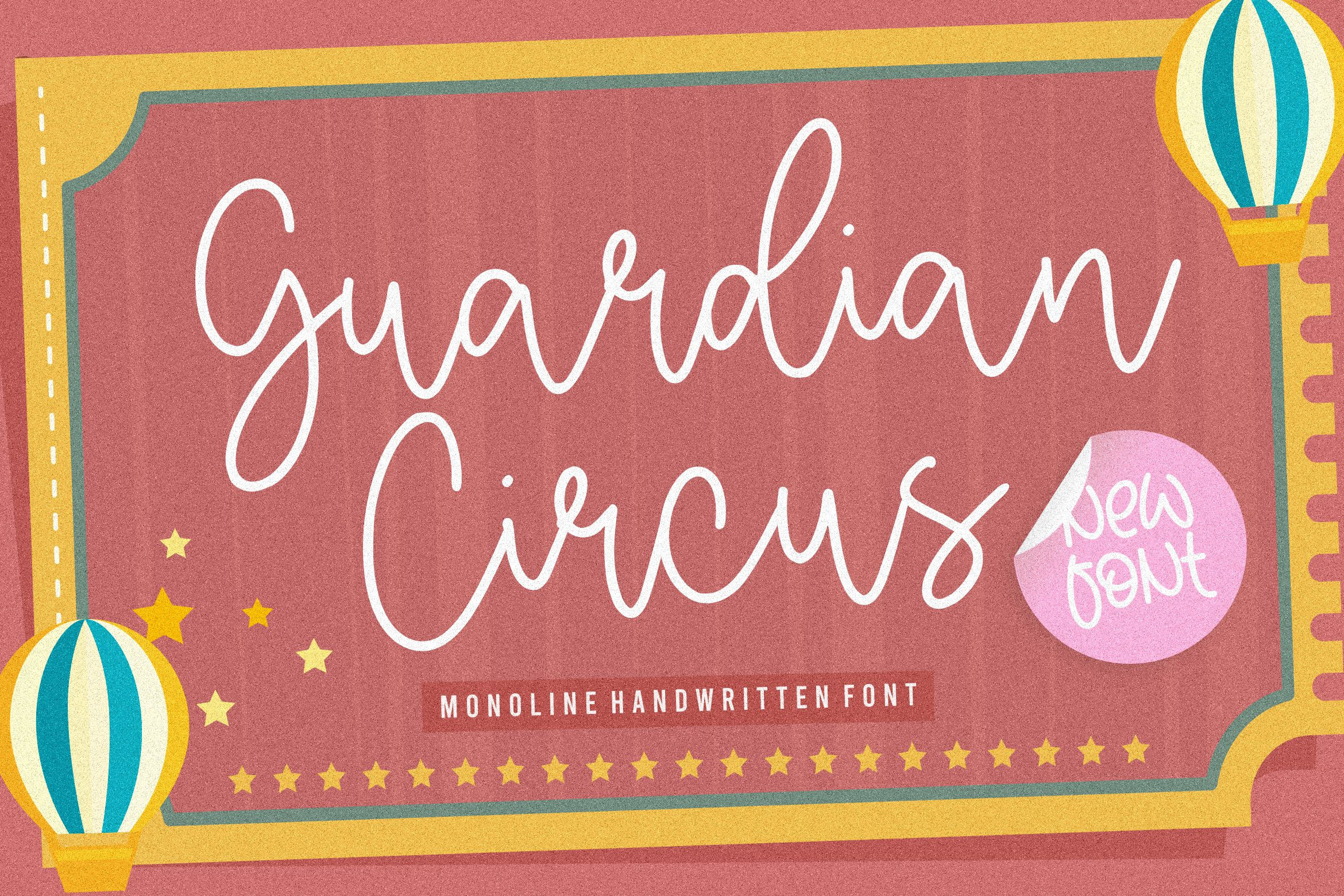
Proudly Present, Guardian Circus Font
Guardian Circus is a sweet, thin and natural handwritten font. It looks friendly and adaptable and it will certainly enhance each and every one of your designs.